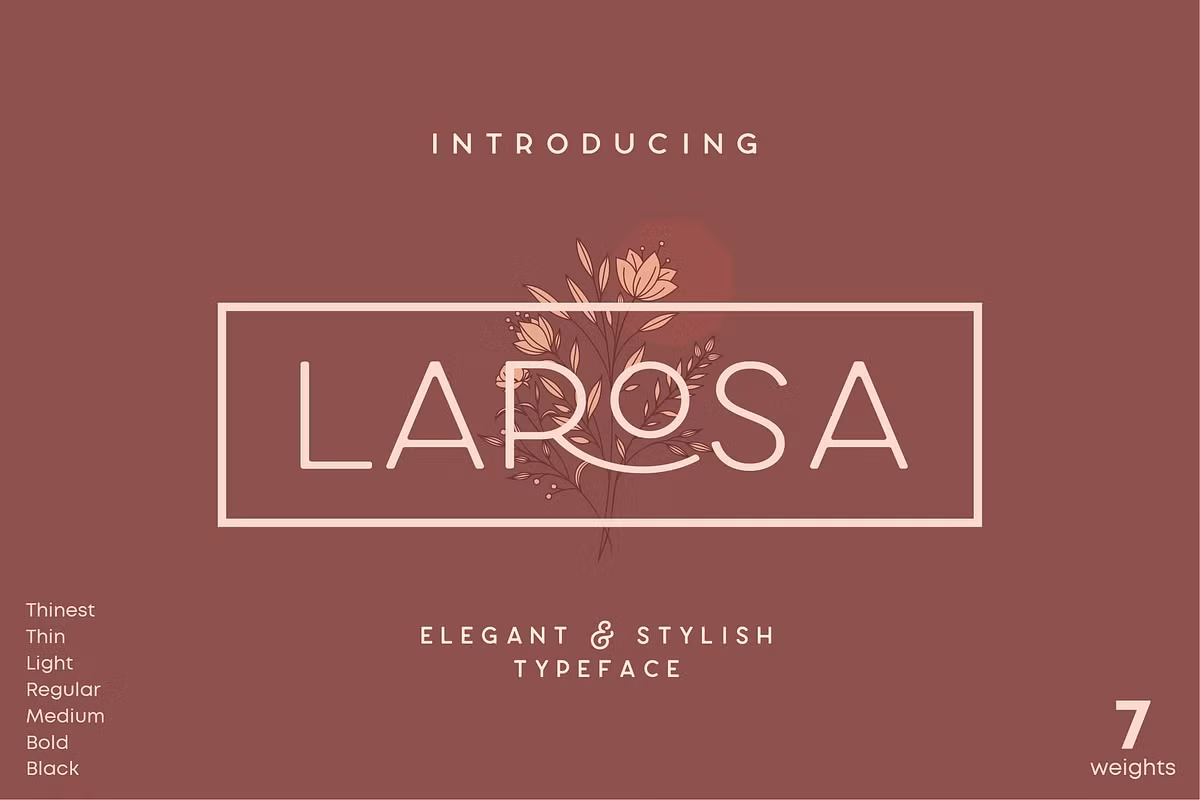
Larosa Sans Elegant Typeface Free Download
Larosa Sans Elegant Typeface Free Download is a sleek and modern sans-serif typeface designed to add sophistication and clarity to your designs. Perfect for logos, branding, websites, and more, Larosa combines clean lines with a refined style, making it ideal for both digital and print applications. Its elegant simplicity ensures that your message is delivered with professionalism and contemporary flair.